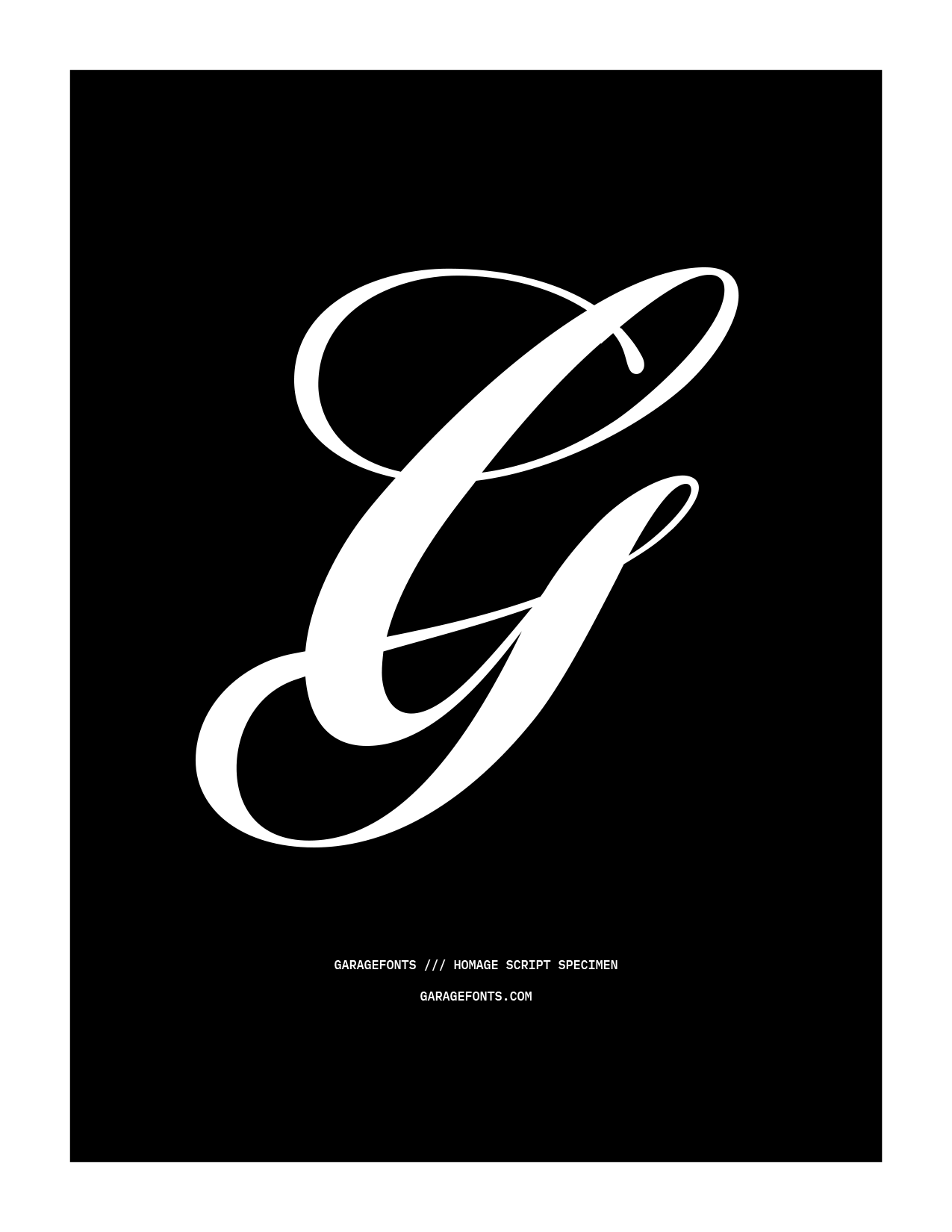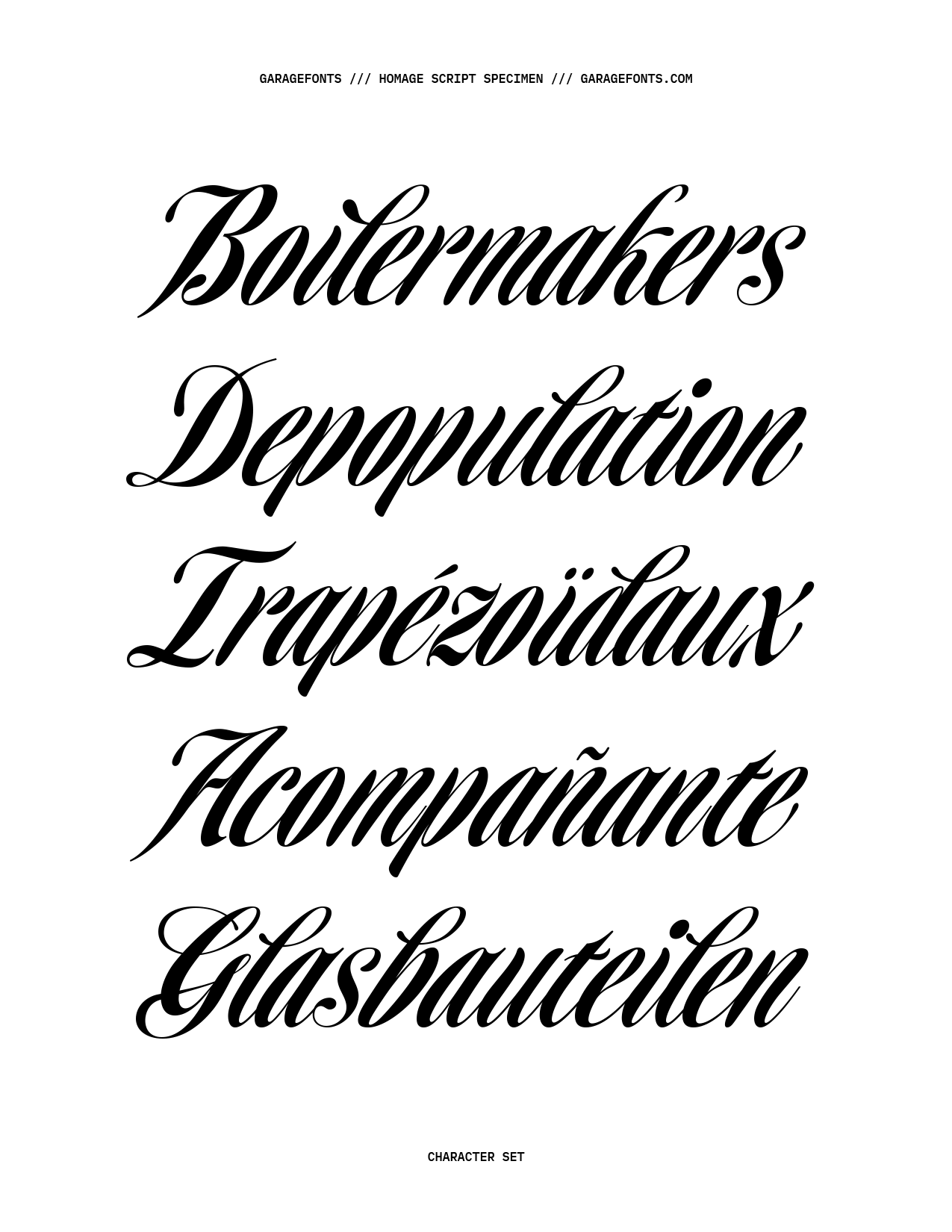
Homage Script
Graceful, elegant, and at times eccentric, Homage Script was inspired by James Hellmuth’s hand-lettered design for the cover of “Homage to the Alphabet” — a gigantic tome produced in 1980 to provide full-showings of photolettering fonts available for traditional typesetting at Phil’s Photo.
Designer: Steve Jackaman
Design Assistance: Alan Meeks